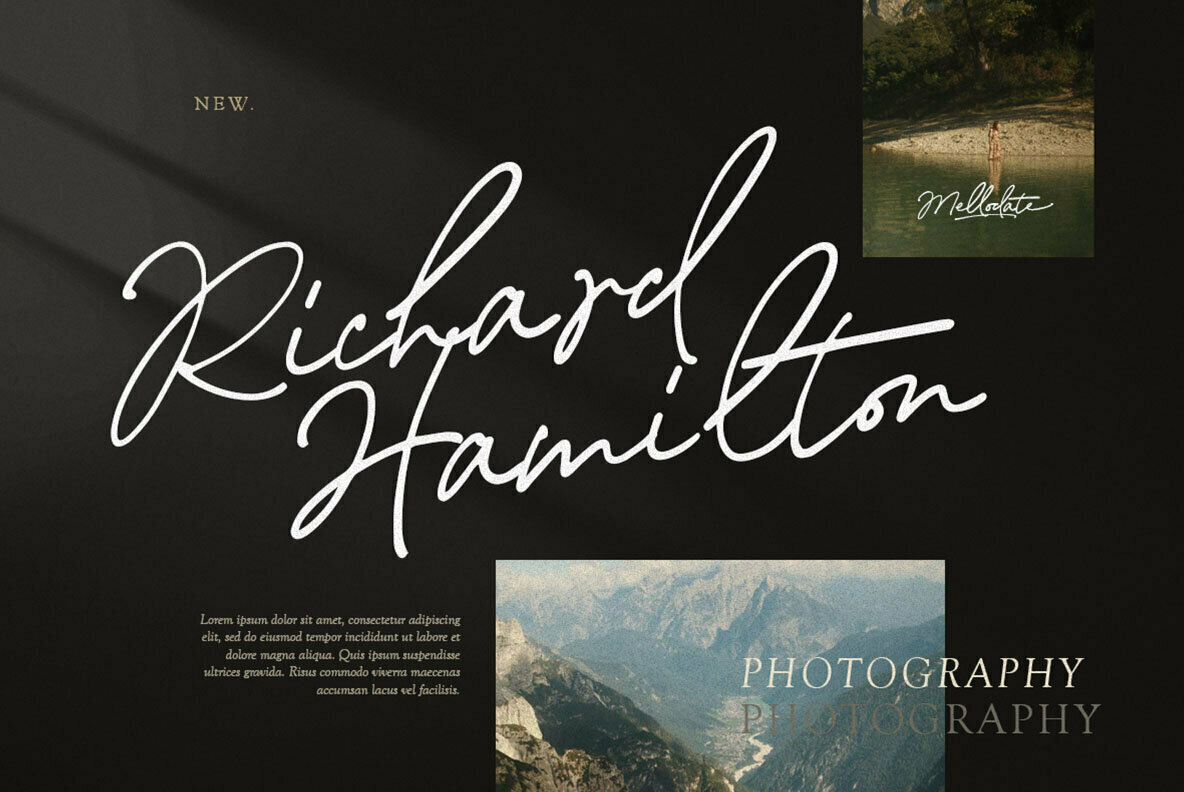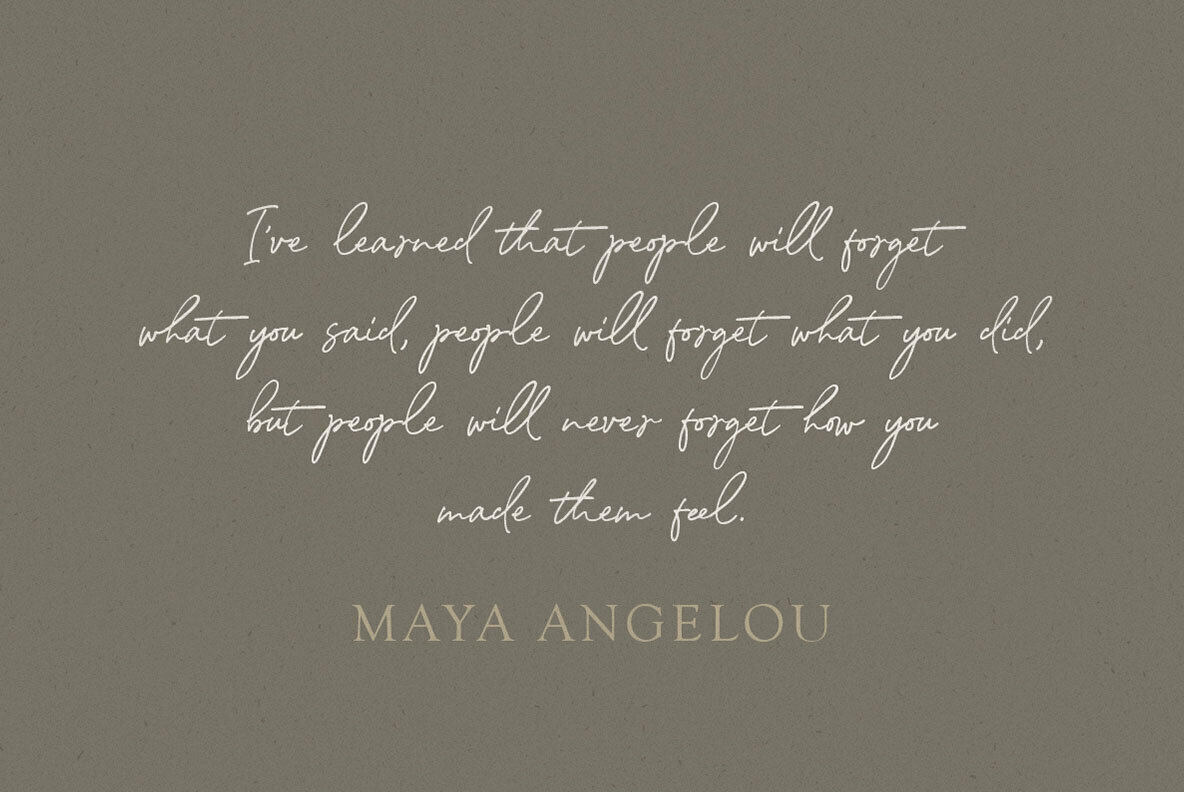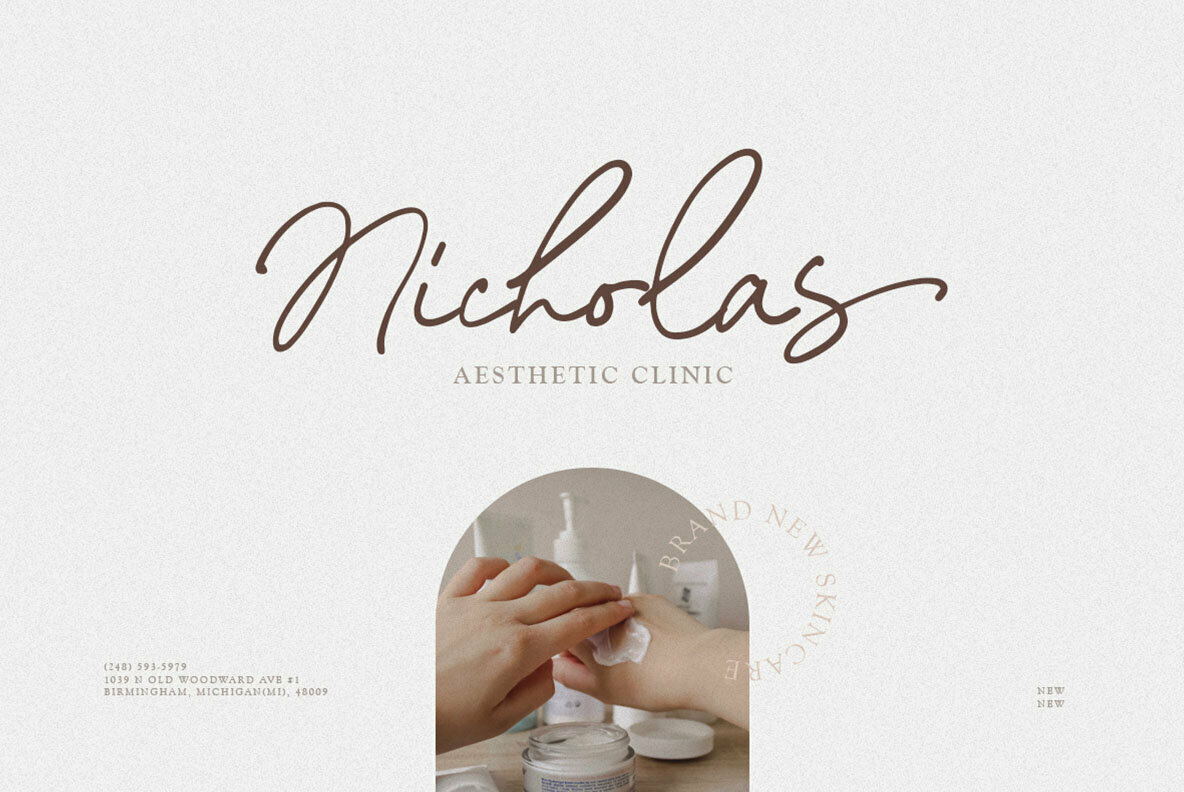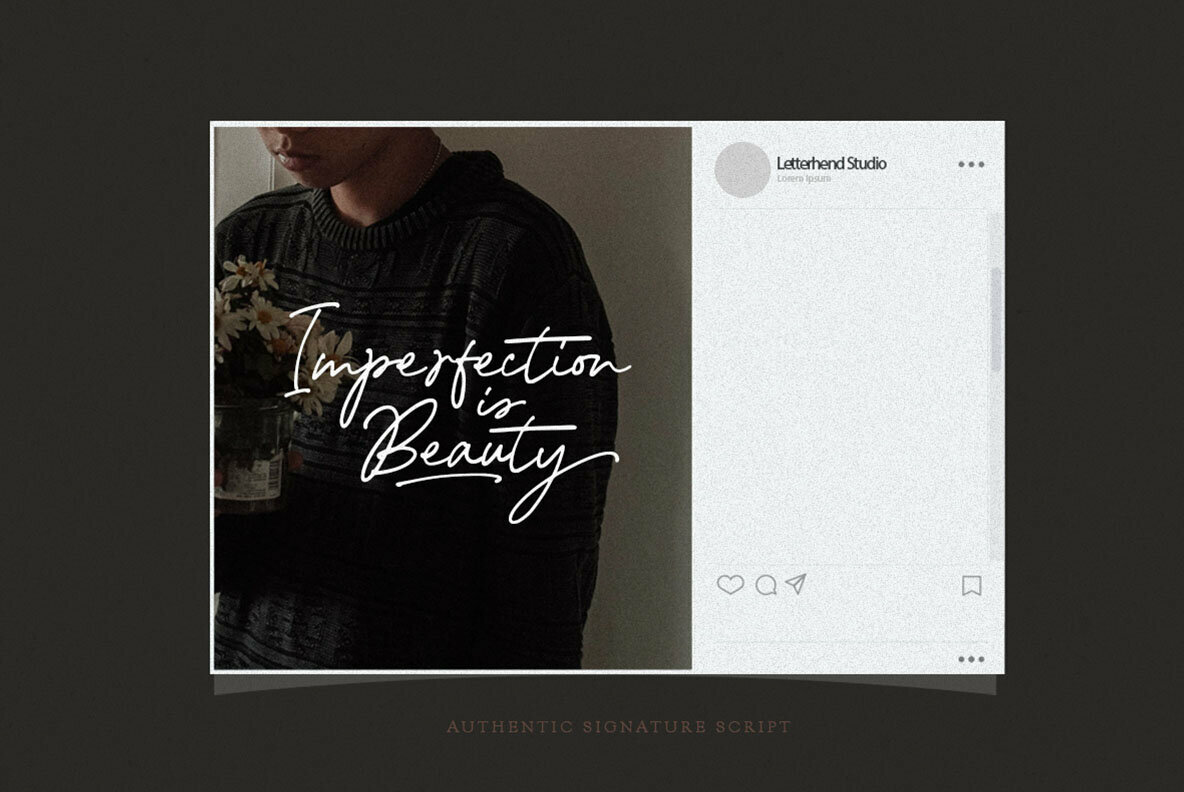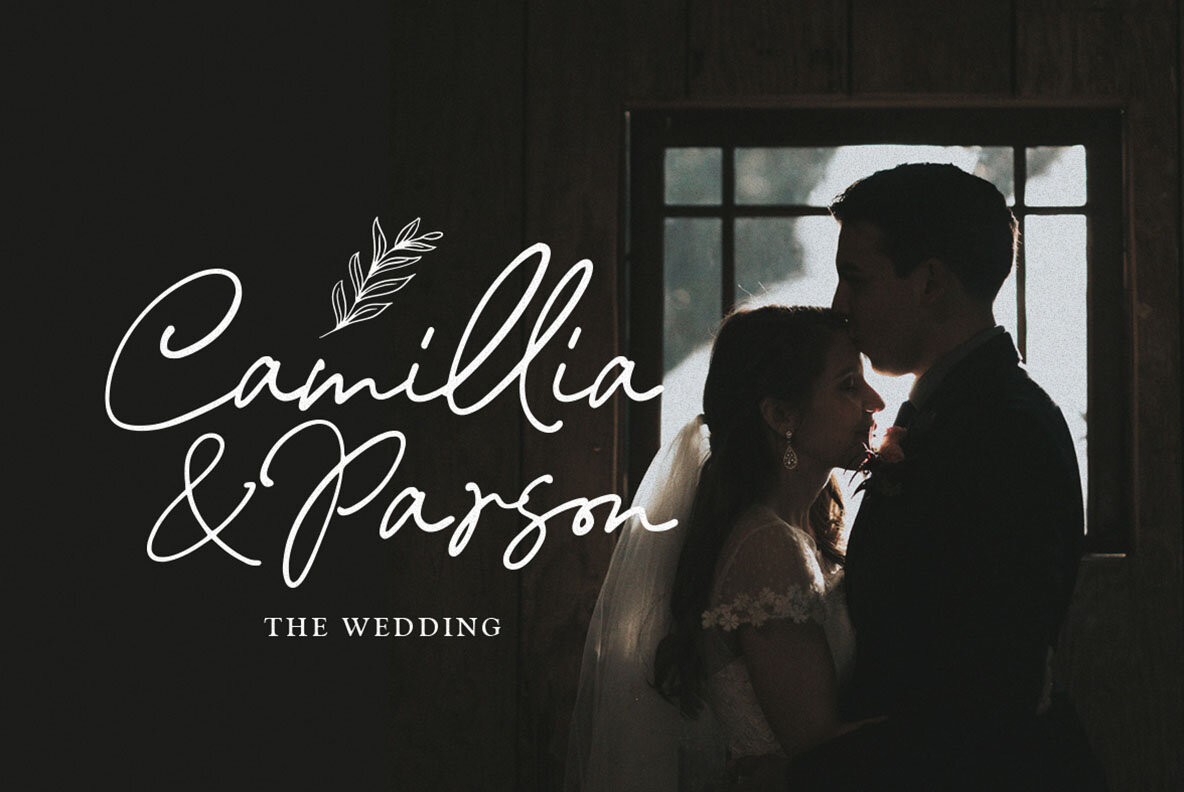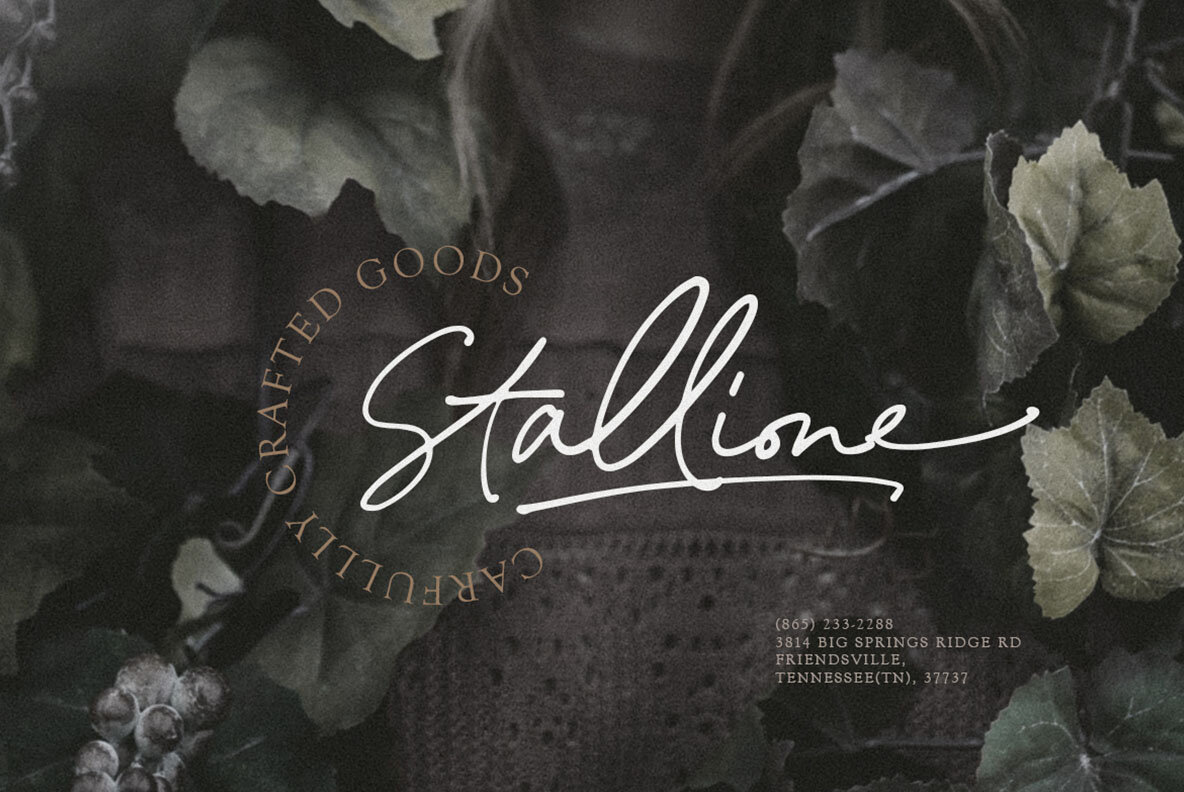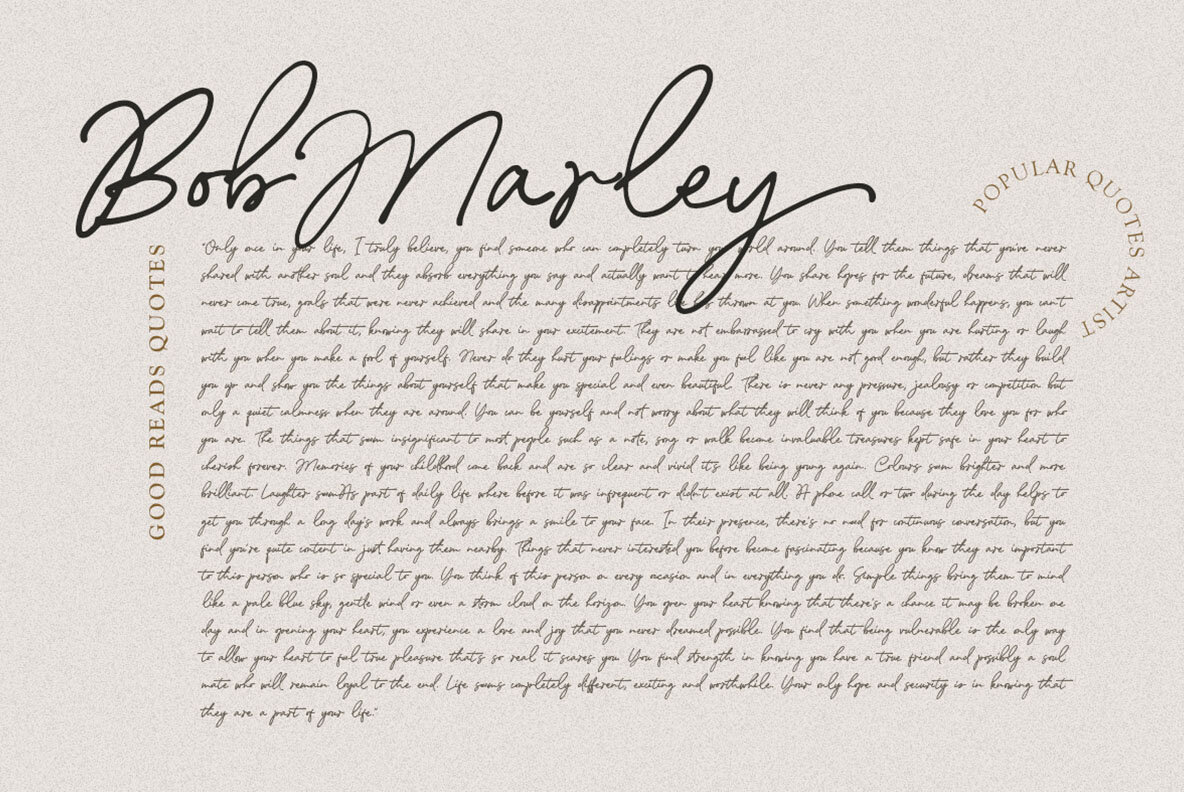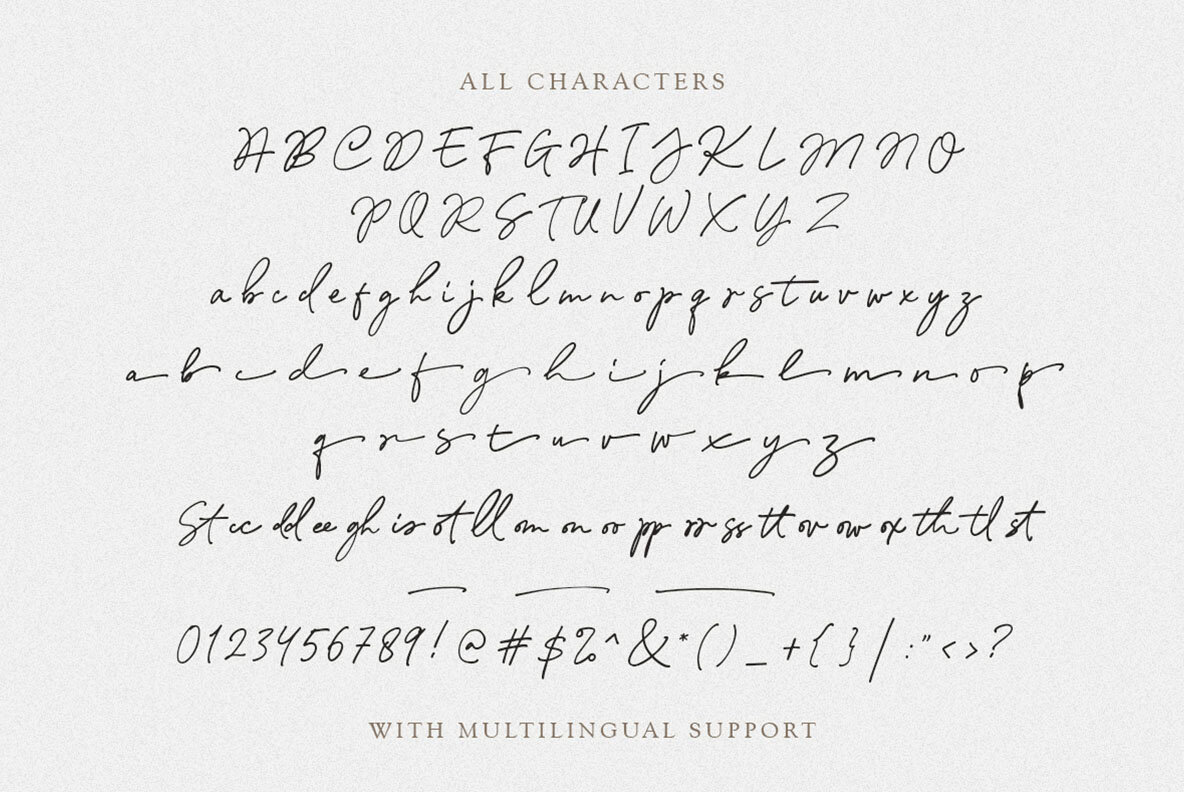
Mellodate Font
Mellodate Script by Letterhend Studio offers an inviting handwritten aesthetic, reminiscent of a natural signature. Its design serves a broad range of applications, perfect for logos and formal settings such as invitations, labels, magazines, greeting cards, and fashion-related branding. For those utilizing Adobe apps or Corel Draw, access to Glyph variants is seamless, allowing extensive customization. Explore how to maximize OpenType features at Letterhend's tutorial hub.Mellodate Script: Authentic Handwriting with Signature Style